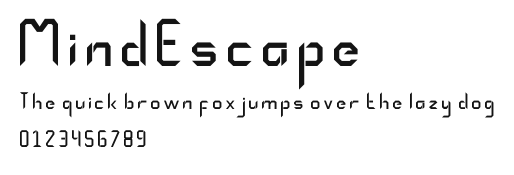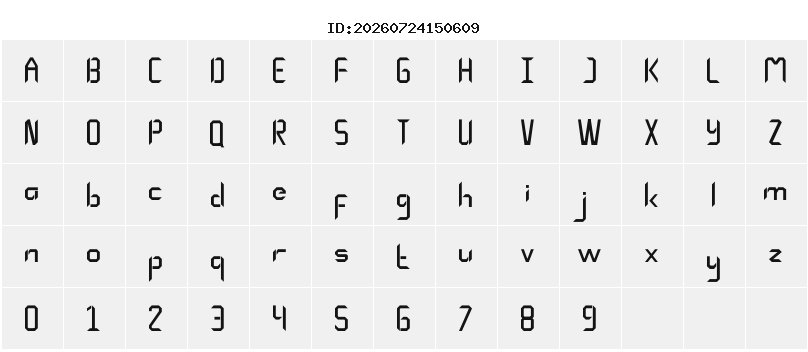
• Font Name: MindEscape
• Full Font Name: MindEscape
About MindEscape.ttf
MindEscape.ttf is a modern, elegant sans-serif font designed for ultimate readability and visual harmony. Perfect for branding, headlines, web design, and print materials.